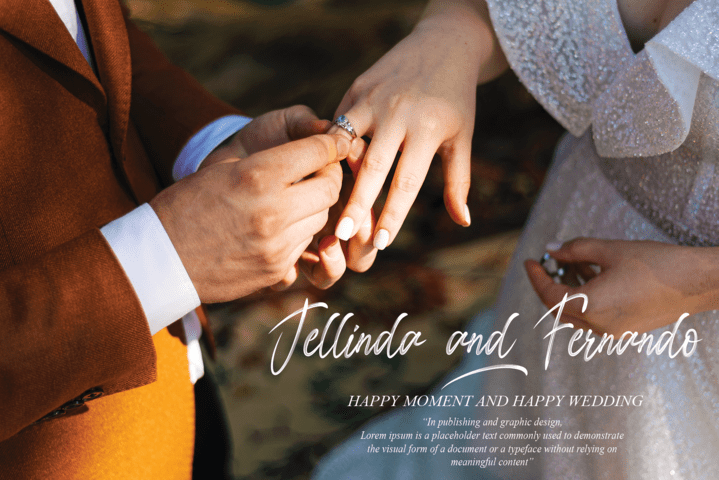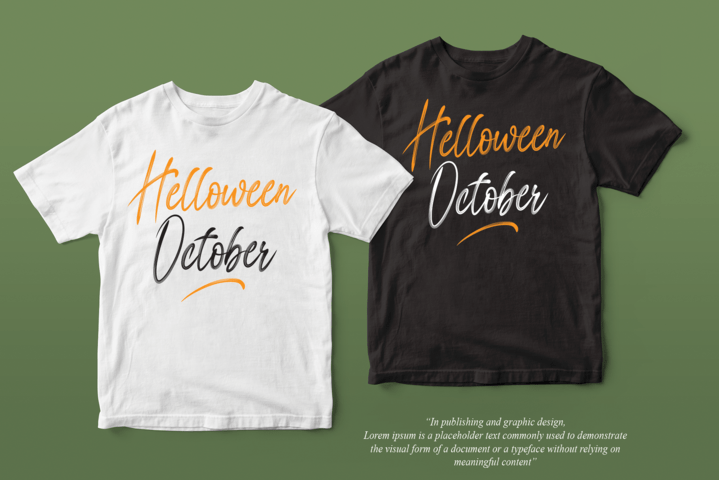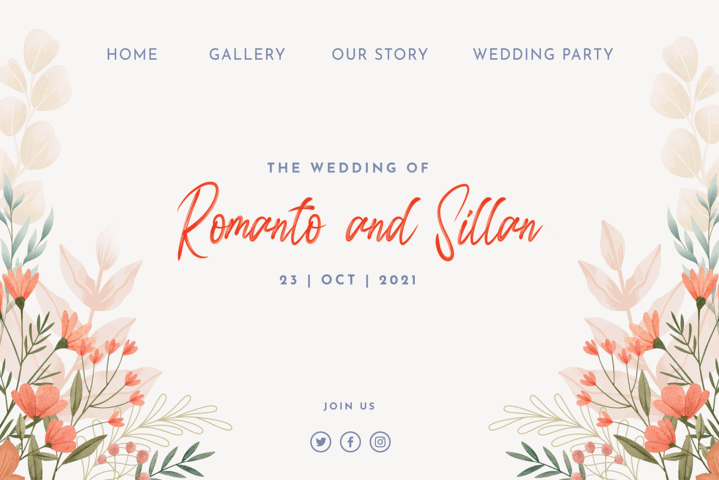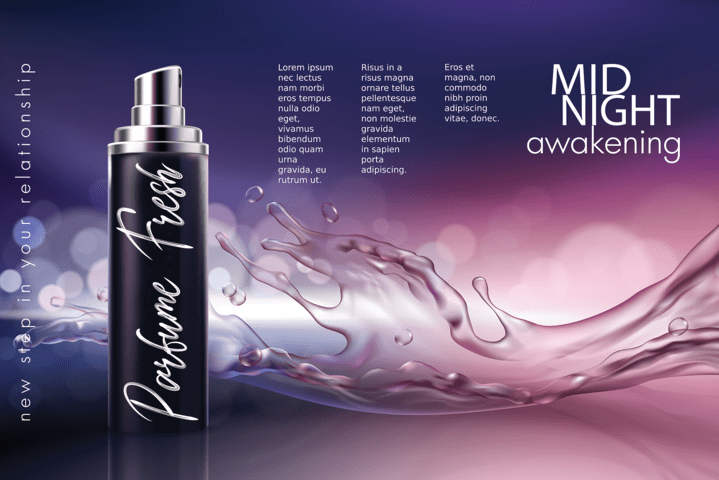
Handmade Full Of Love Font
It’s a beautiful and refined script font. It has a classy, elegant and modern look that can be used for logos, branding, invitations, stationery, wedding designs, social media posts, and much more!